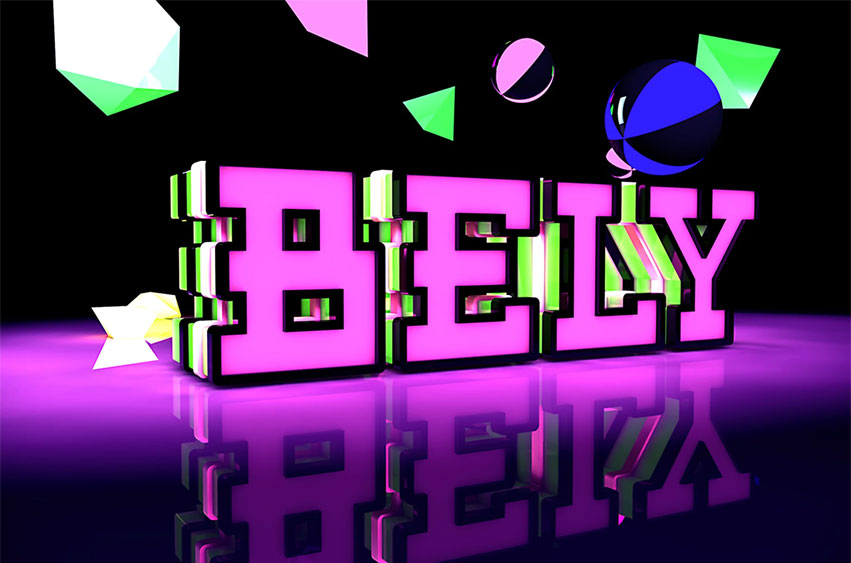
Bely Font
Bely Font Slab Font Ideal for Posters, logos and more. Every letter has a unique and beautiful touch, which will make your design come alive!
Crafted with high attention to detail, it gives you the best design experience.